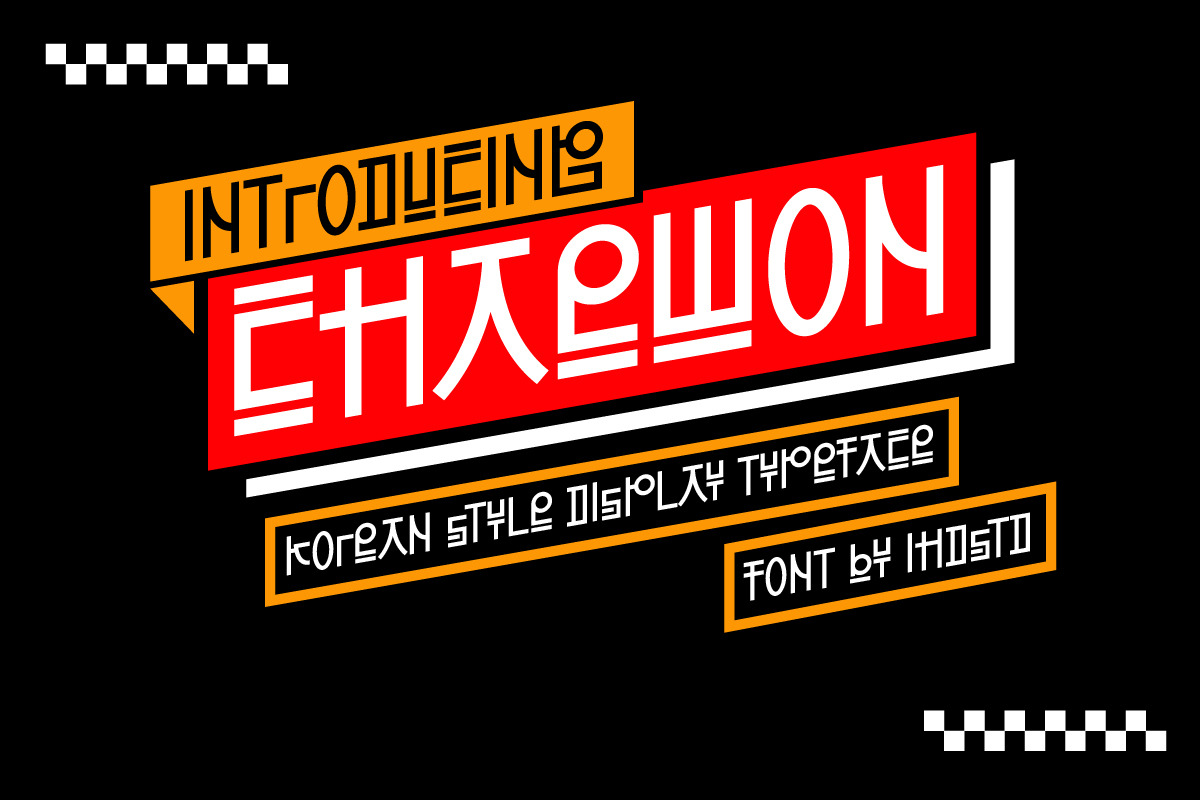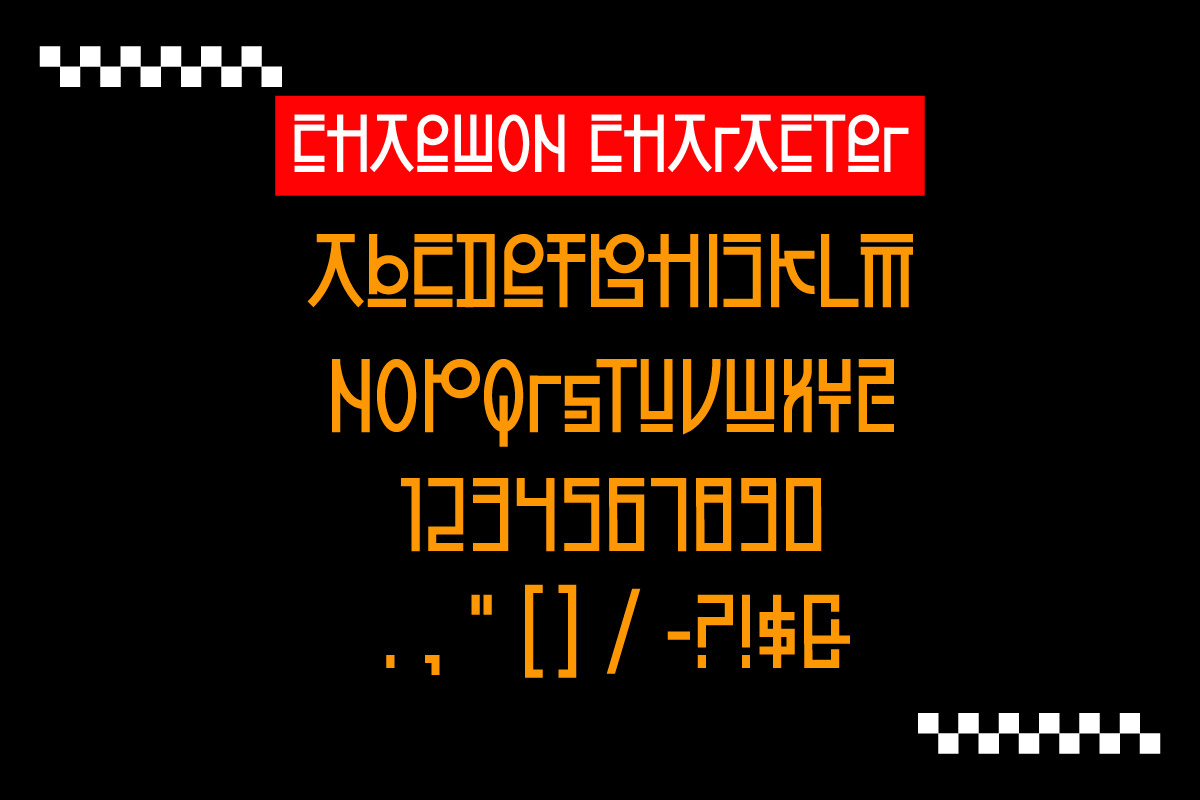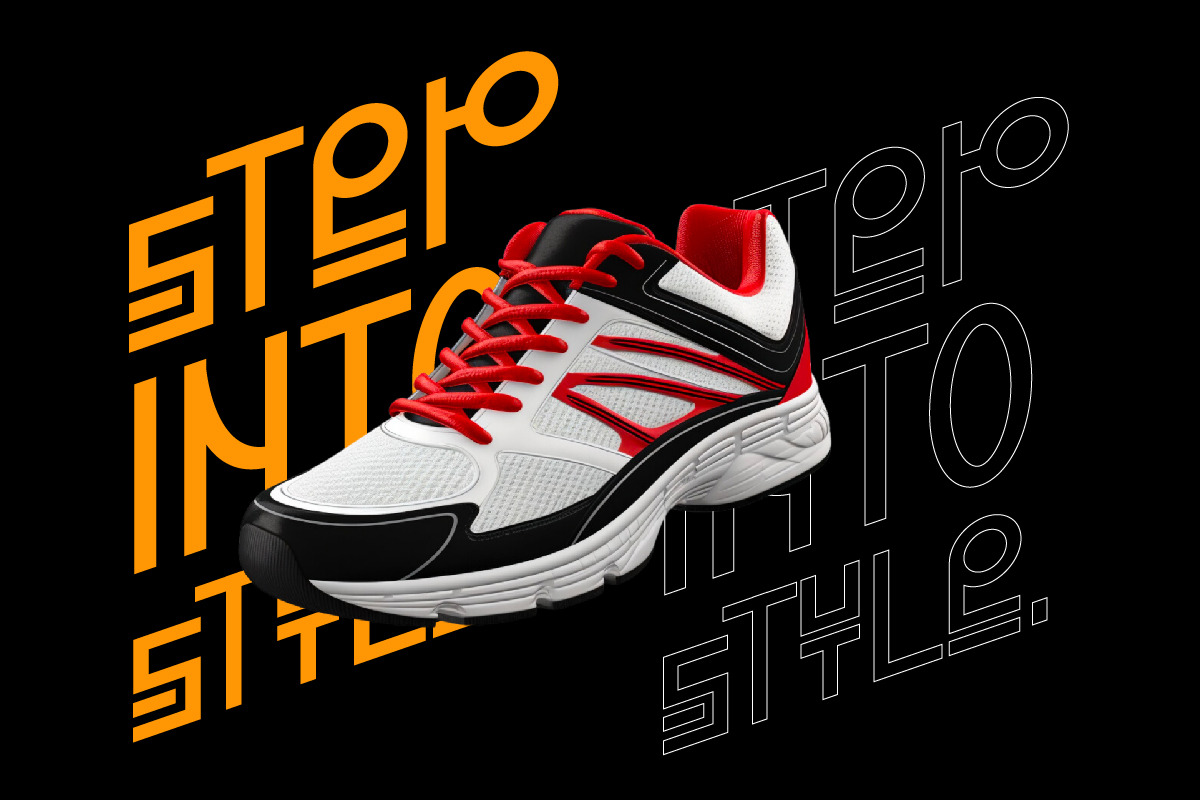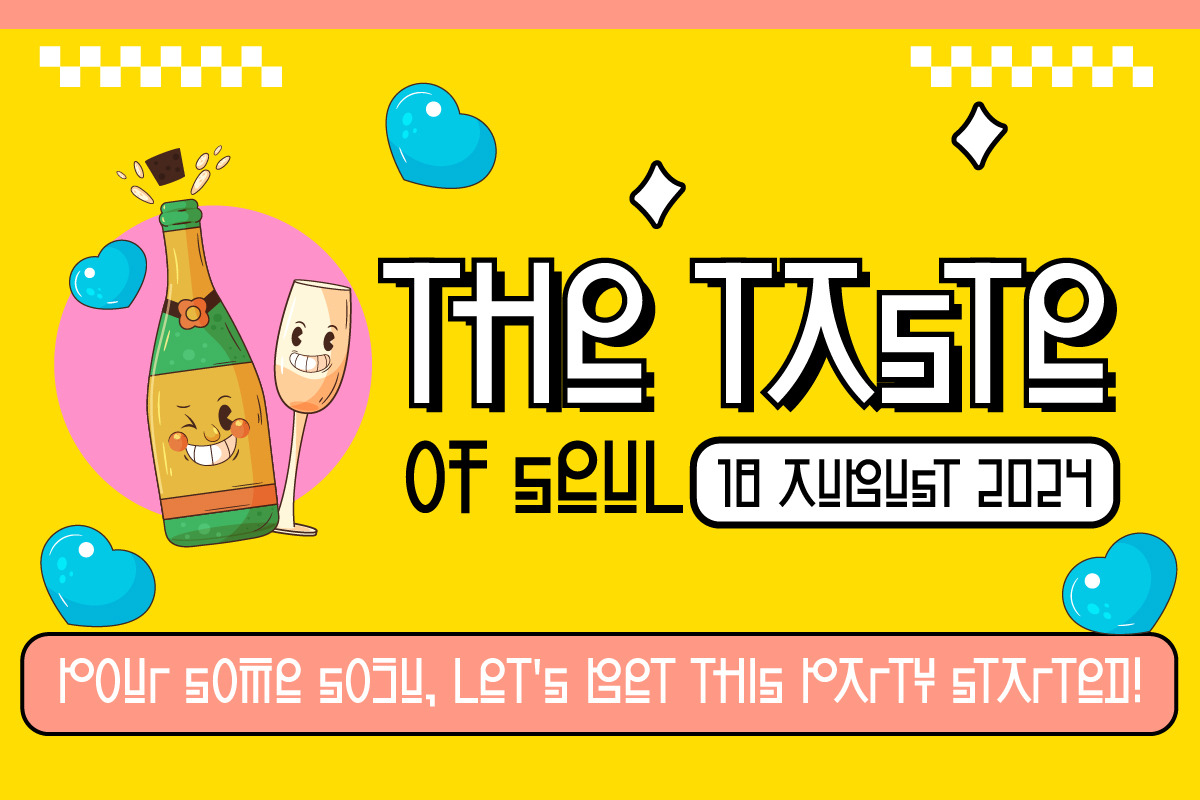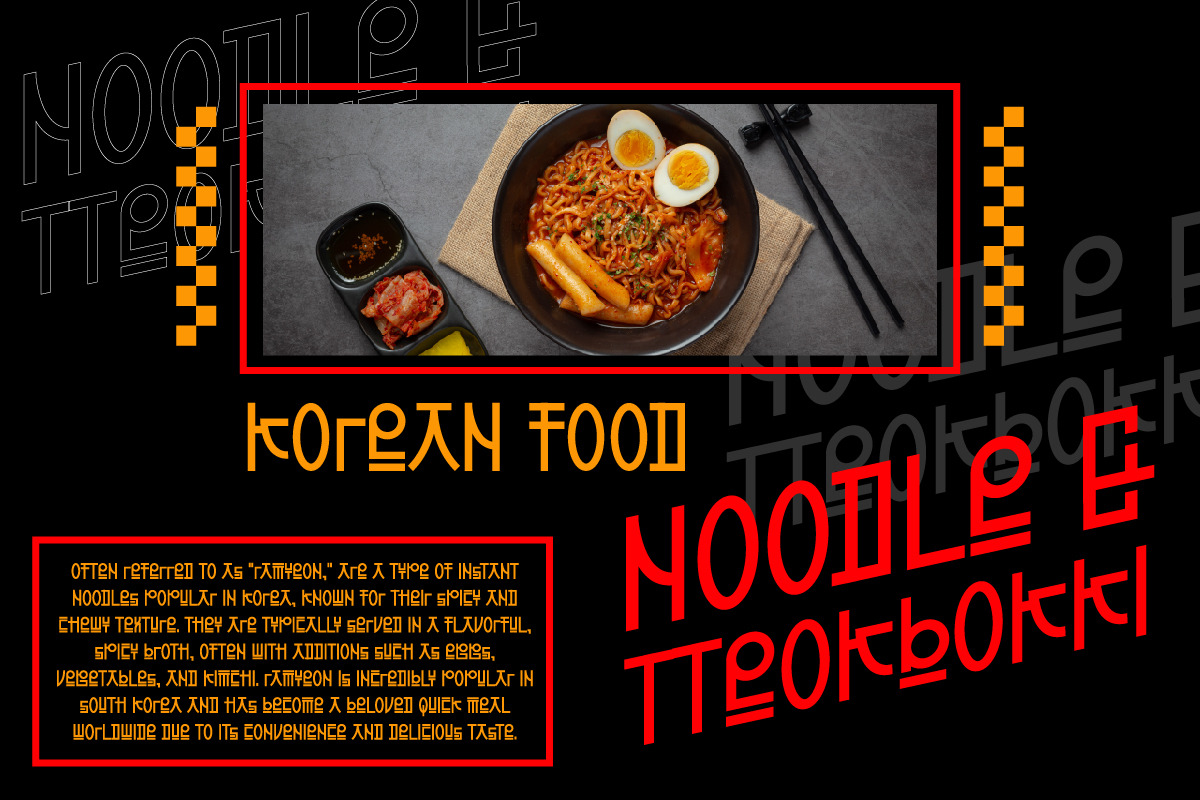
Chaewon Korean Style Display Font
Chaewon Korean Style Display Font is our new item that suitable for your Posters.
Great for Logo, Poster, Sticker, Jersey, Invitation Card, Brochure, etc.